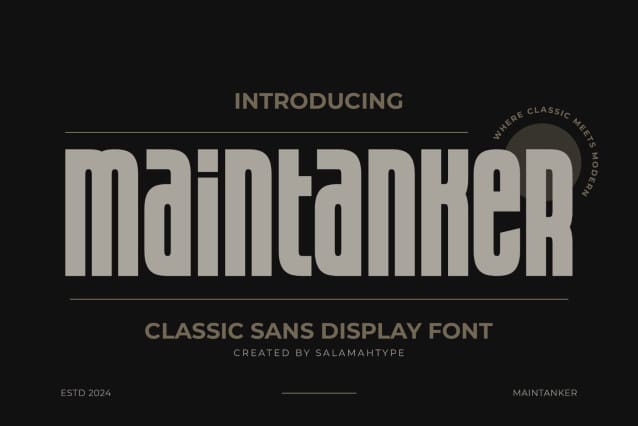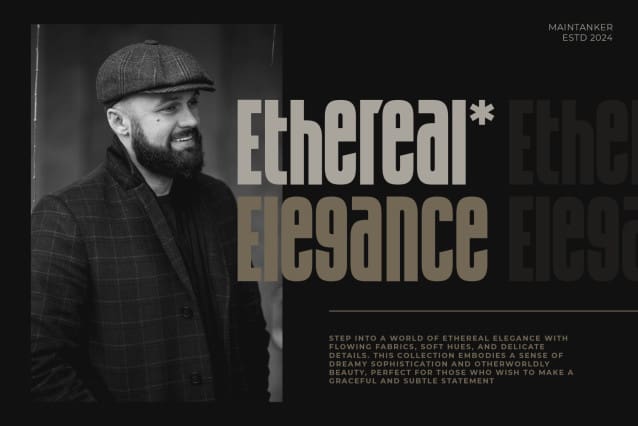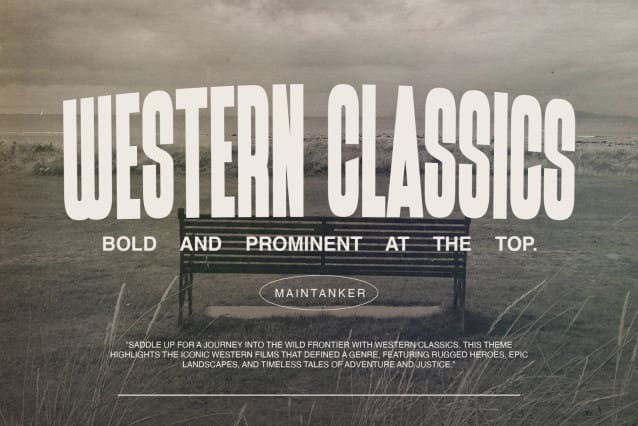
Maintanker Classic Font
Maintanker Classic Font is a bold, condensed font perfect for logos or headlines on product packaging. Its unique style stands out, especially when combined with uppercase and lowercase letters. Additionally, it supports multiple languages, making it versatile for various branding needs. Ideal for creating eye-catching and memorable designs.